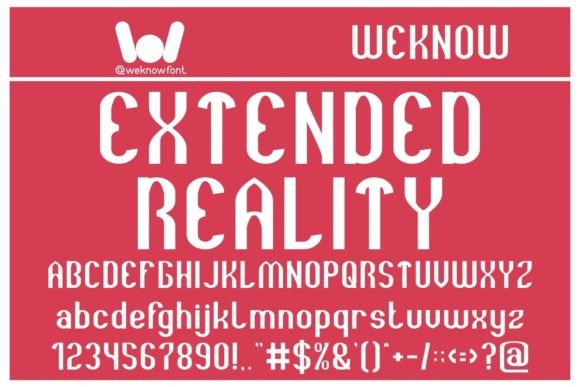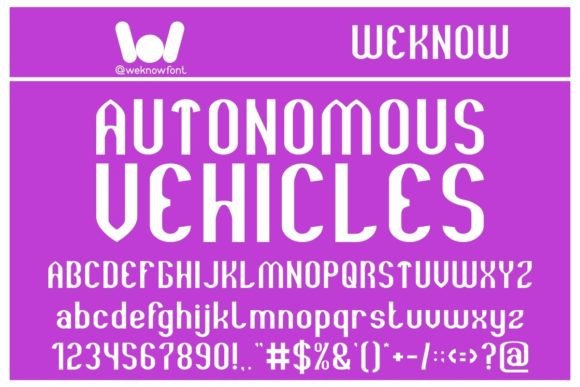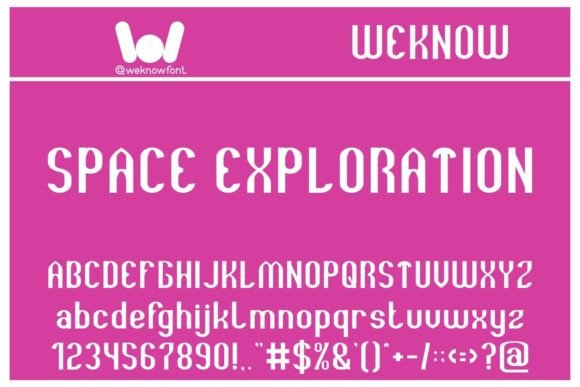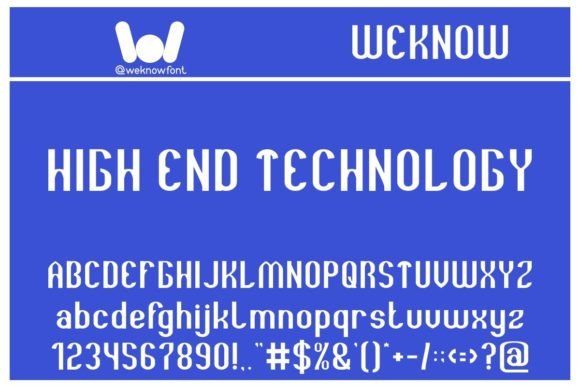
Unlocking Creative Potential with Advance Technology Font
In the realm of design, the right font can elevate a project from ordinary to extraordinary. For designers and crafters seeking a versatile and impactful typeface, the Advance Technology Font stands out as an exceptional choice. This basic yet varied display font is engineered to enhance a wide range of creative projects, from logos and headlines to apparel designs and digital media.
What is Advance Technology Font?
Advance Technology Font is a meticulously crafted display font, designed to offer a fresh and modern aesthetic to various design projects. Its versatility is one of its most compelling features, making it suitable for a broad spectrum of applications. Whether you’re working on a logo, a brand identity, a poster, a movie title, or even a comic book, this font provides the flexibility and style needed to make your project stand out.
Key Features of Advance Technology Font
- Versatility: One of the font’s most significant advantages is its adaptability. It can be used in both digital and print media, making it a valuable asset for designers working across different platforms.
- Distinctive Style: The Advance Technology Font boasts a unique and contemporary look that can add a professional and sleek feel to any design. Its characters are carefully designed to ensure readability without compromising on style.
- Wide Range of Applications: From corporate identities and brand logos to apparel designs, posters, and digital content for YouTube and Instagram, this font can enhance any project with its presence.
- Easy to Use: Designed with user-friendliness in mind, the Advance Technology Font can be easily integrated into various design software, making it accessible for designers of all skill levels.
Applications of Advance Technology Font
The Advance Technology Font’s wide range of applications makes it a go-to choice for many designers. Here are some of the areas where this font truly shines:
- Logo and Brand Identity: Create a lasting impression with a unique and memorable logo. The font’s distinctive style ensures that your brand stands out from the competition.
- Apparel Industry: From t-shirts to hoodies, the Advance Technology Font can add a modern touch to your apparel designs, making them more appealing to customers.
- Digital Media: Enhance your YouTube videos, Instagram posts, and website content with a stylish and readable font. This can help increase engagement and make your content more memorable.
- Poster and Print Design: Whether you’re designing a poster for a movie, a concert, or an event, this font can help grab attention and convey your message effectively.
- Books, Magazines, and Comics: Add a professional touch to your publications with a font that is both stylish and easy to read.
Why Choose Advance Technology Font?
In a world where design plays a crucial role in communication, having the right font can make all the difference. The Advance Technology Font offers a perfect blend of style, versatility, and functionality. Here are a few reasons why it should be your go-to font:
- Unique Style: Stand out from the crowd with a font that offers a fresh and modern aesthetic.
- Time-Saving: With a font that is easy to use and adaptable, designers can save time and focus on other creative aspects of their projects.
The Advance Technology Font is more than just a typeface; it’s a tool that can unlock the full creative potential of your design projects. Its versatility, distinctive style, and wide range of applications make it an invaluable asset for designers and crafters. Whether you’re working on a brand identity, a digital project, or a print design, this font can help elevate your work to new heights. Embrace the power of Advance Technology Font and discover a world of limitless design possibilities.